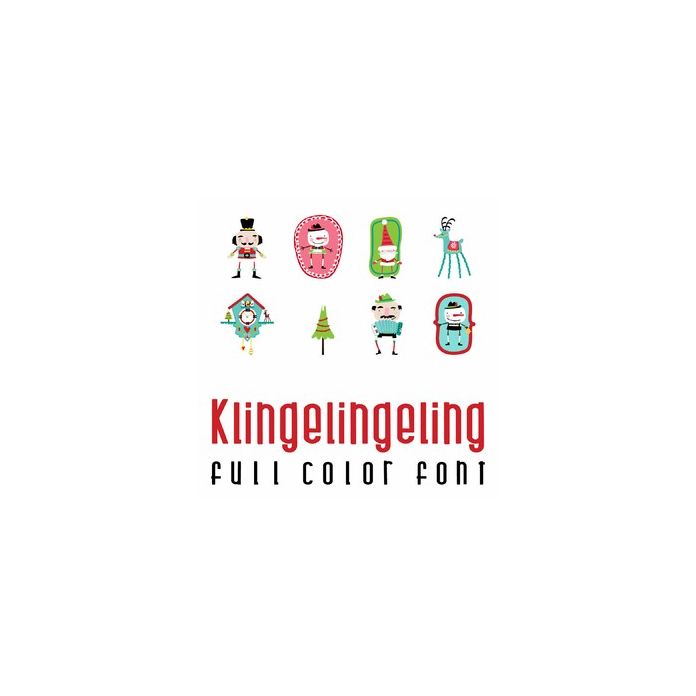
This fun full color doodlebat font features 26 German style whimsical Christmas imagery. Perfect for cards, crafts, gifts, decor, scrap book pages, planner stickers and more!